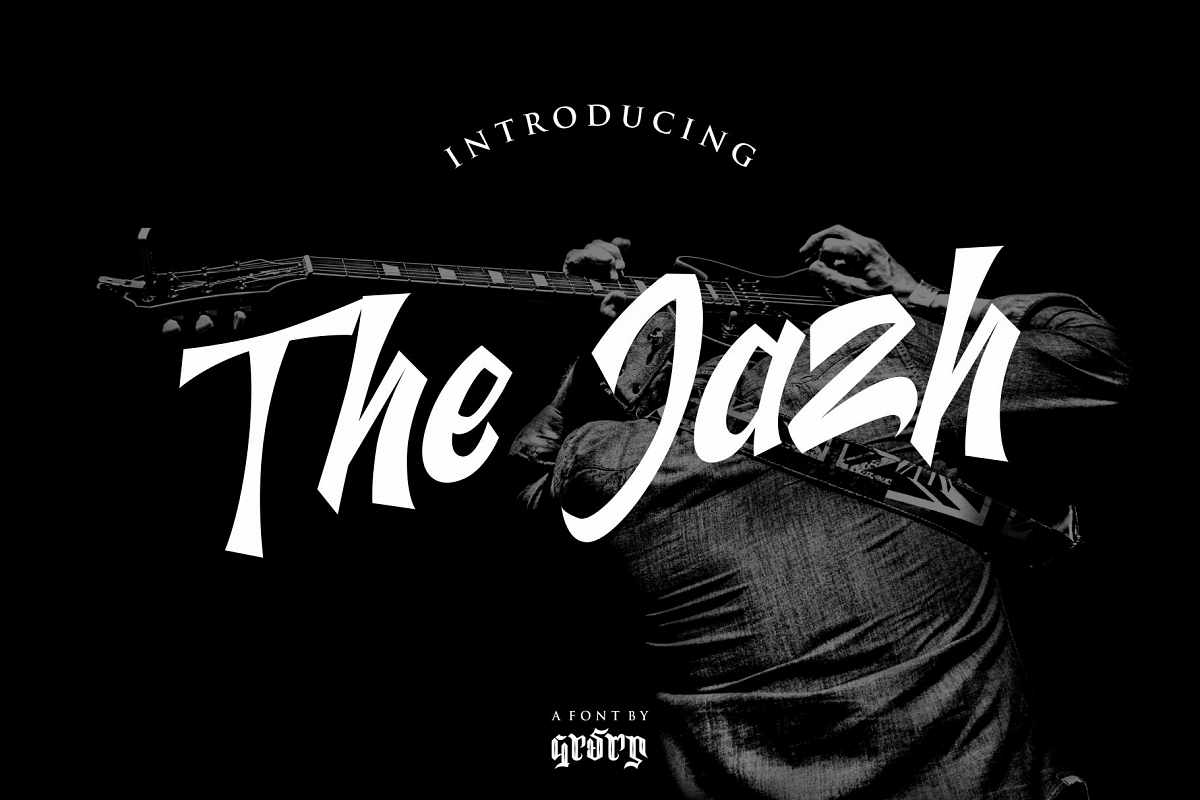
The Jazh
The Jazh is a font for all types of designs such as branding projects, logos, wedding designs, social media posts, advertisements, product packaging, product designs, labels, photography, watermarks, invitations, stationery and any project. With a firm and modern writing style.What is included?
• Standard Ligatures, Stylistic Alternate, & Stylistic Set